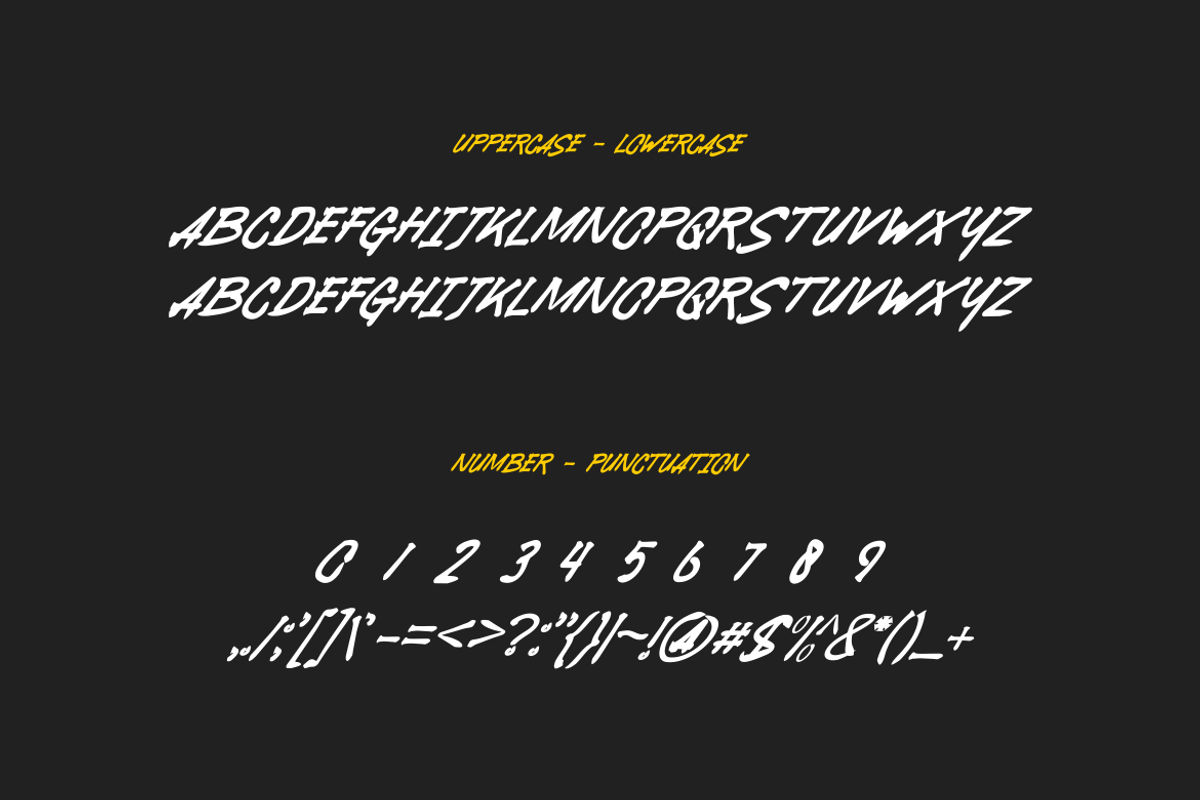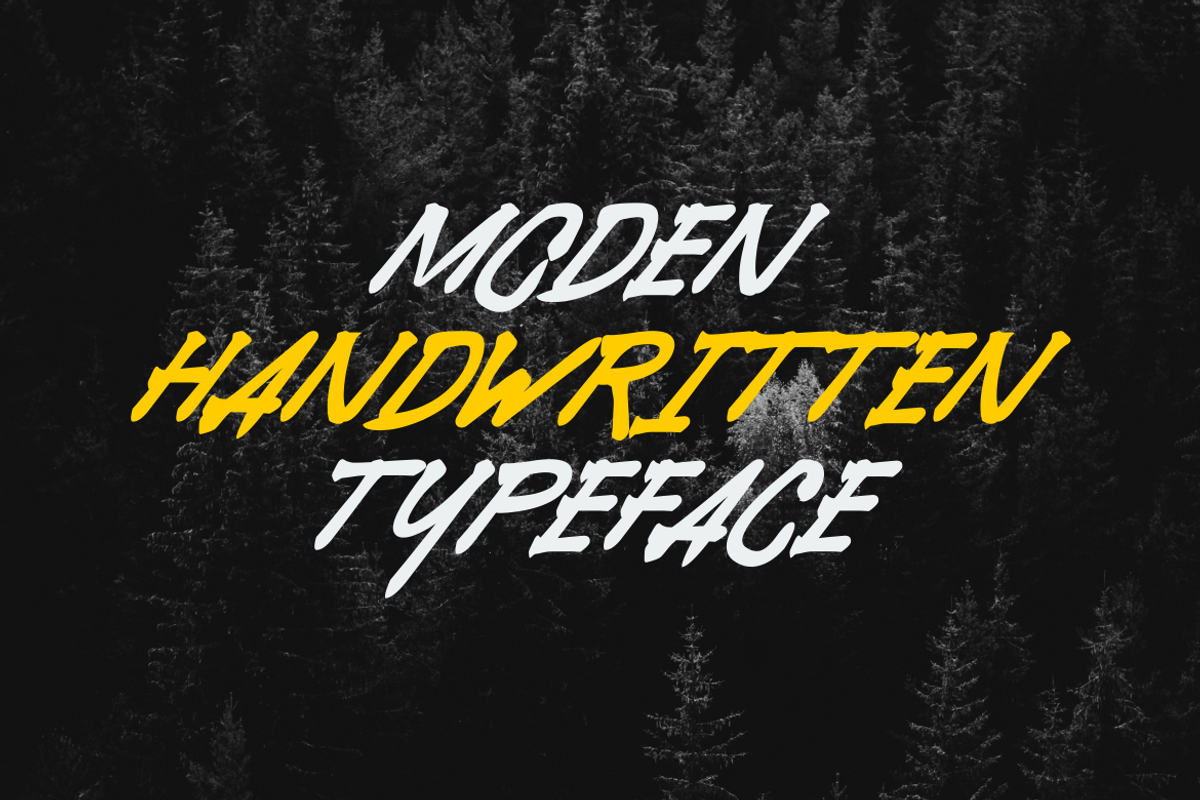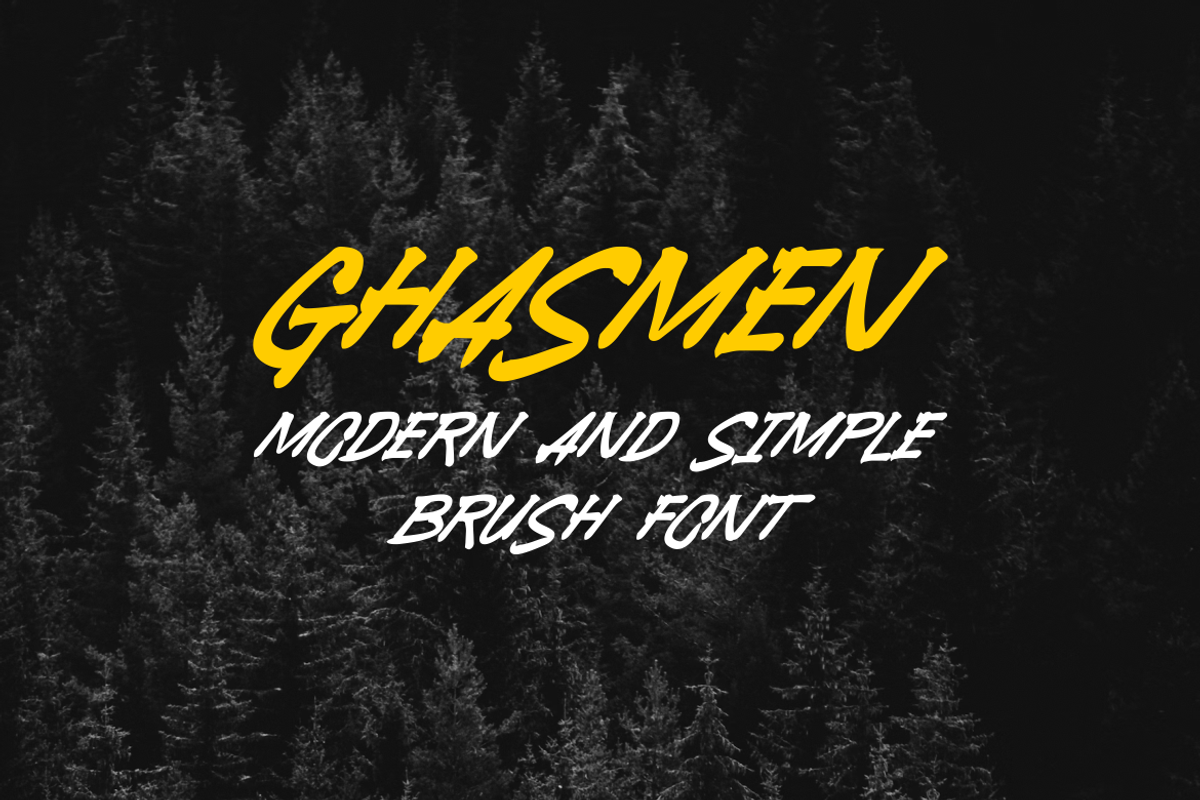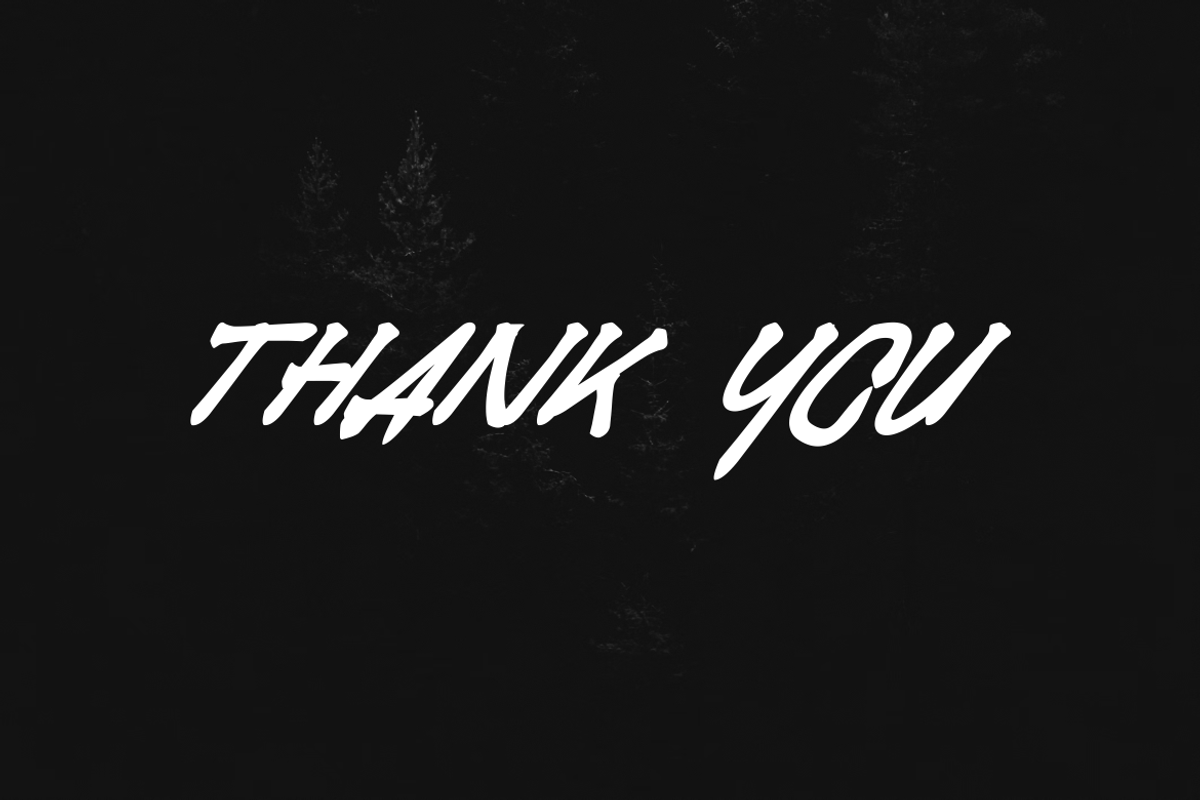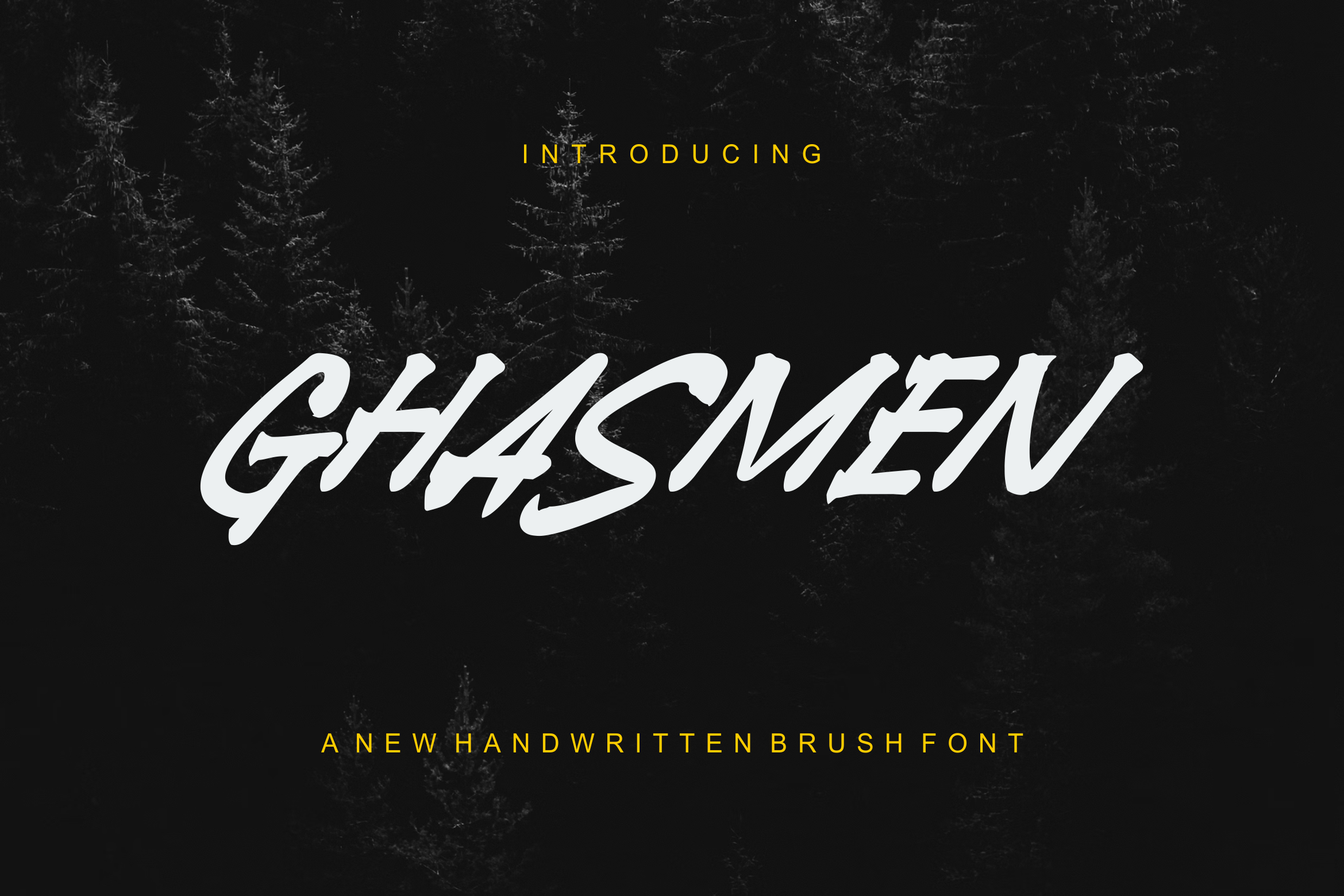
Ghasmen - Font
- Modern Font is a bold and authentic display font. The font is suitable for any branding project like logo, t-shirt printing,, and many more. outstanding in a wide range of contexts.